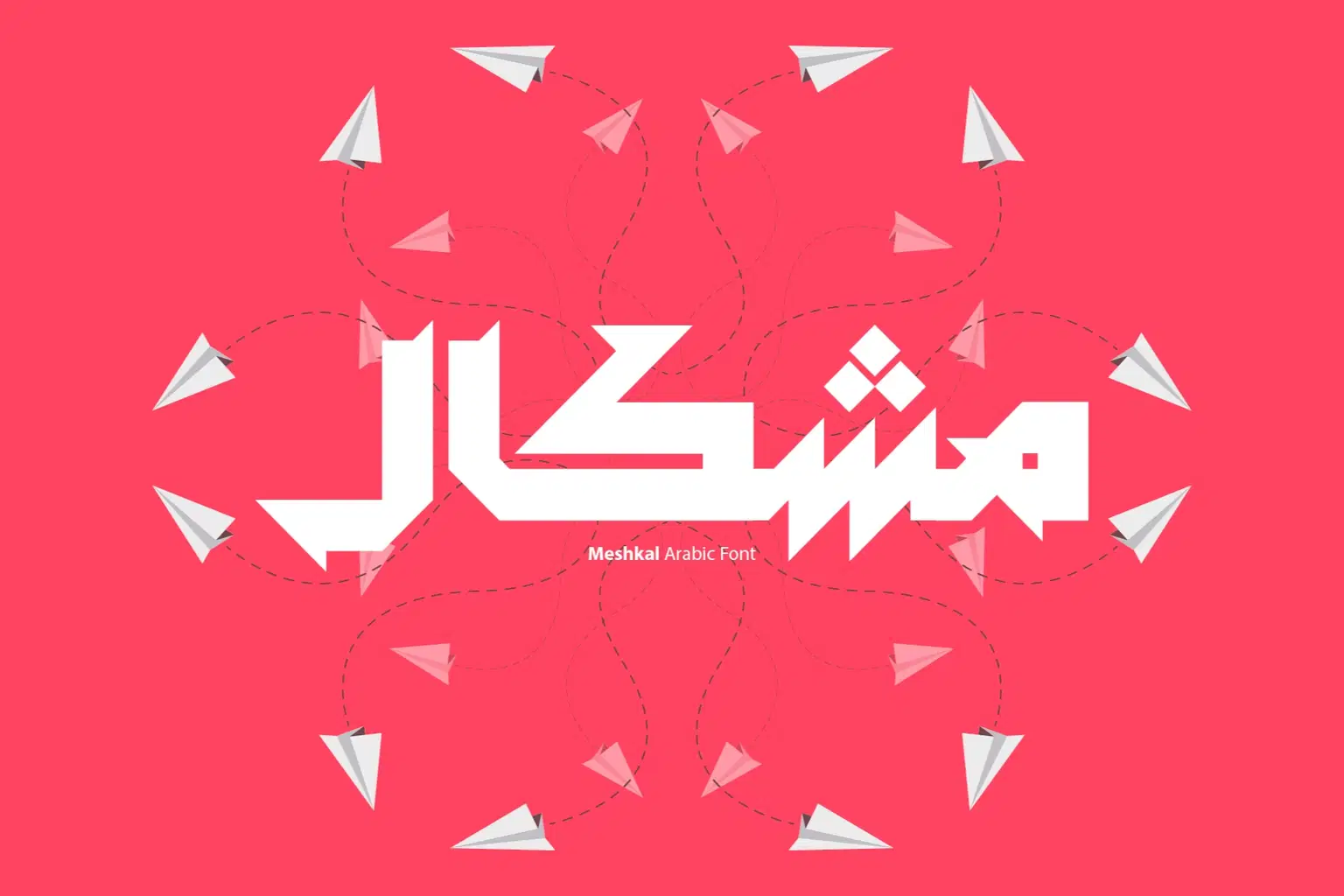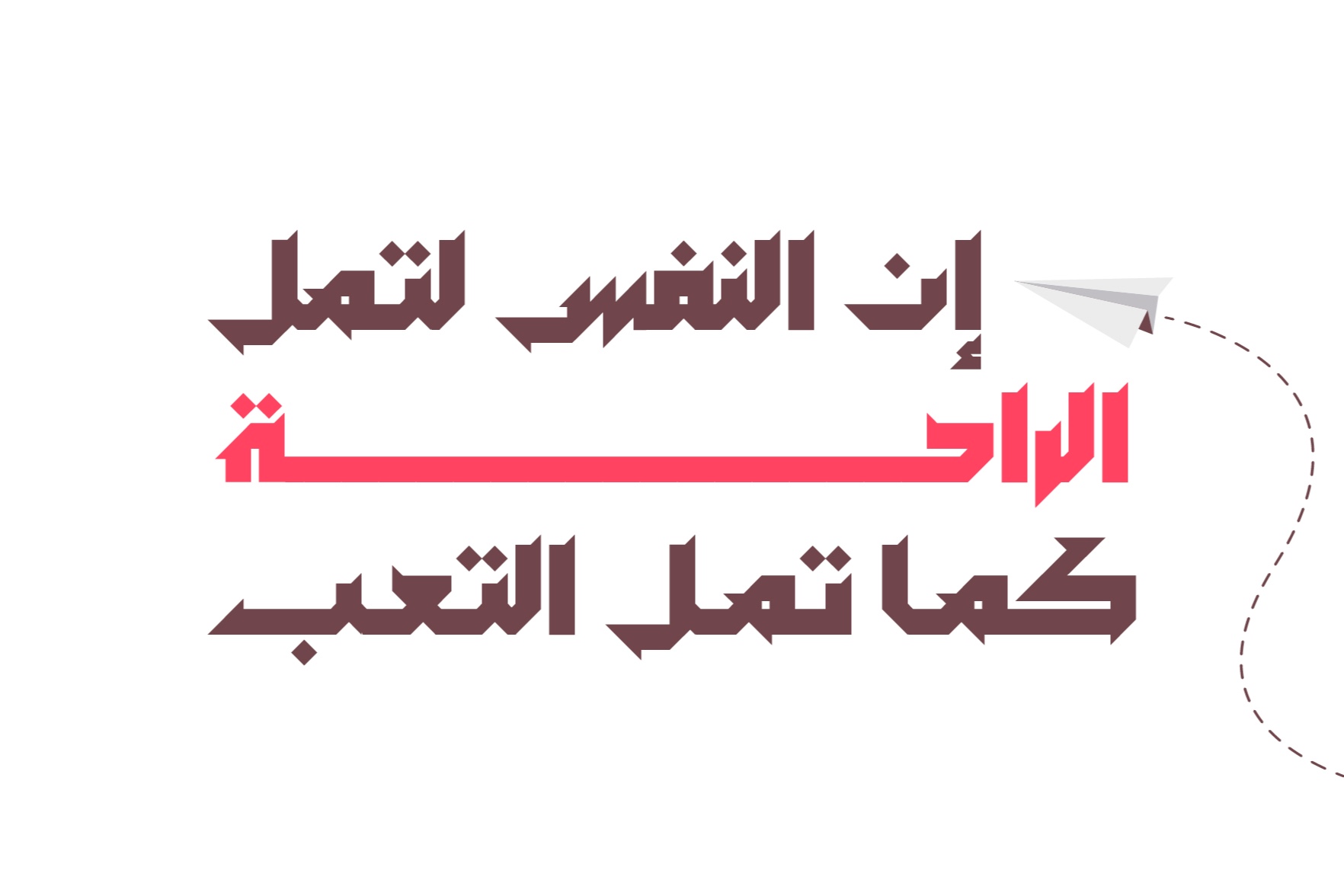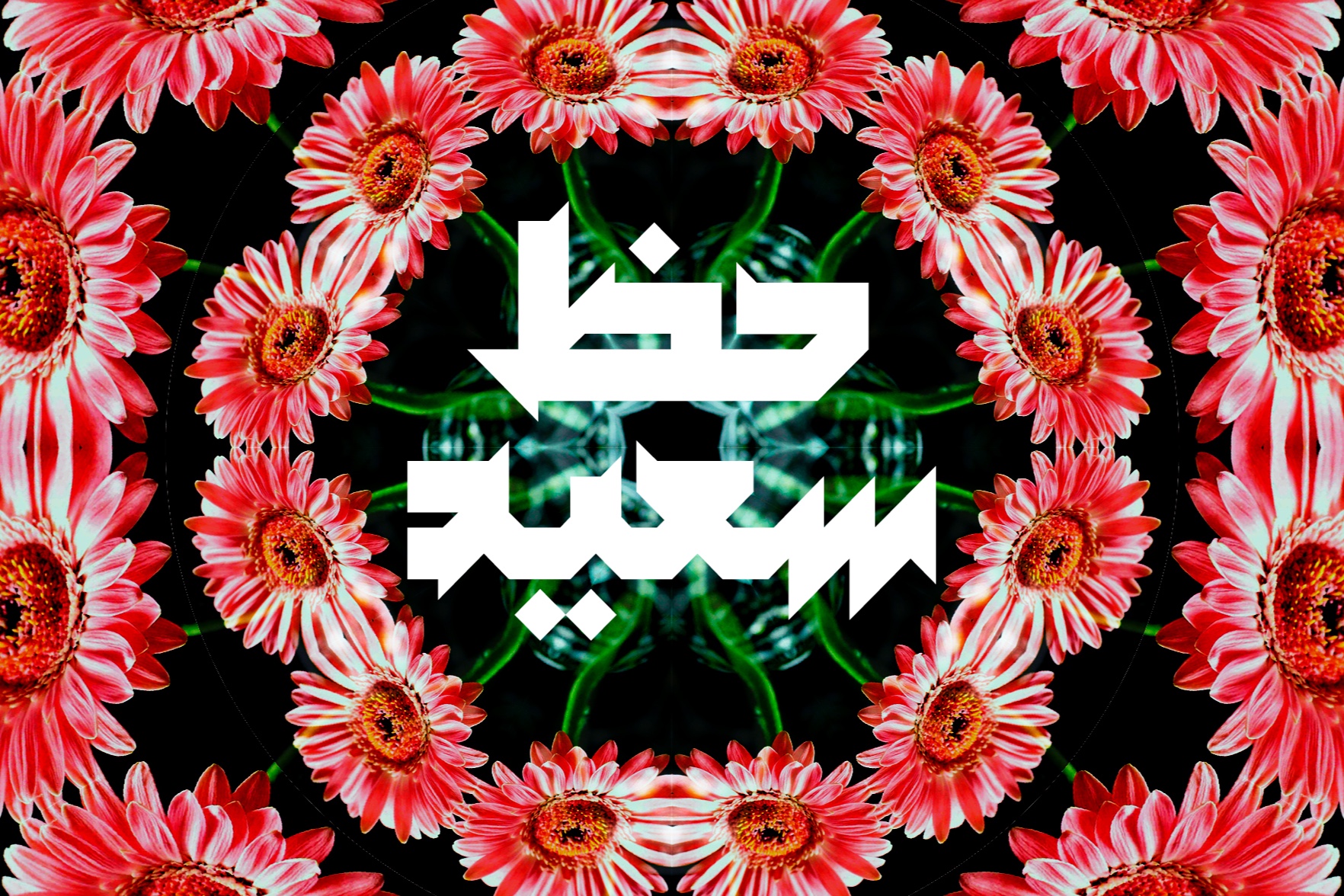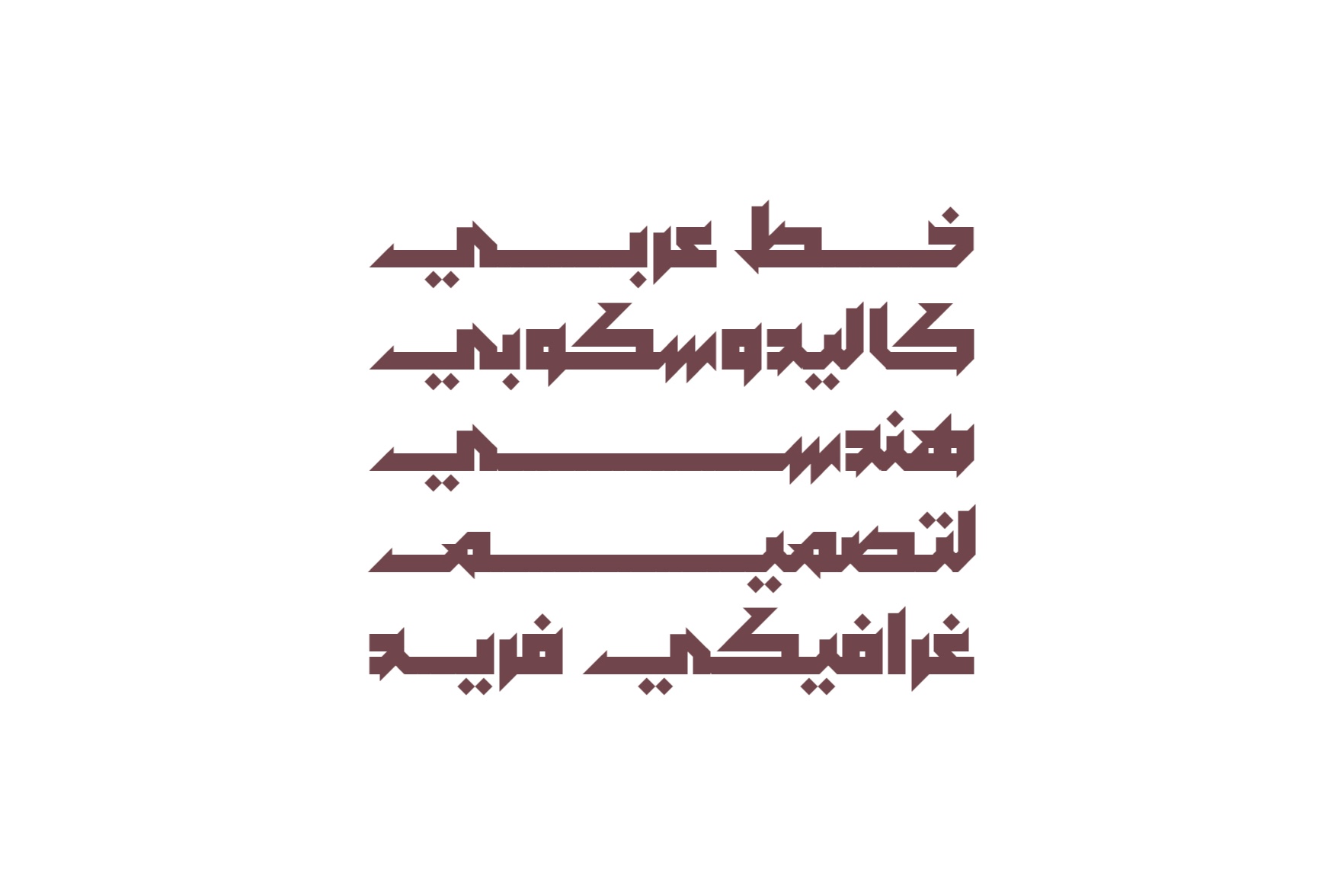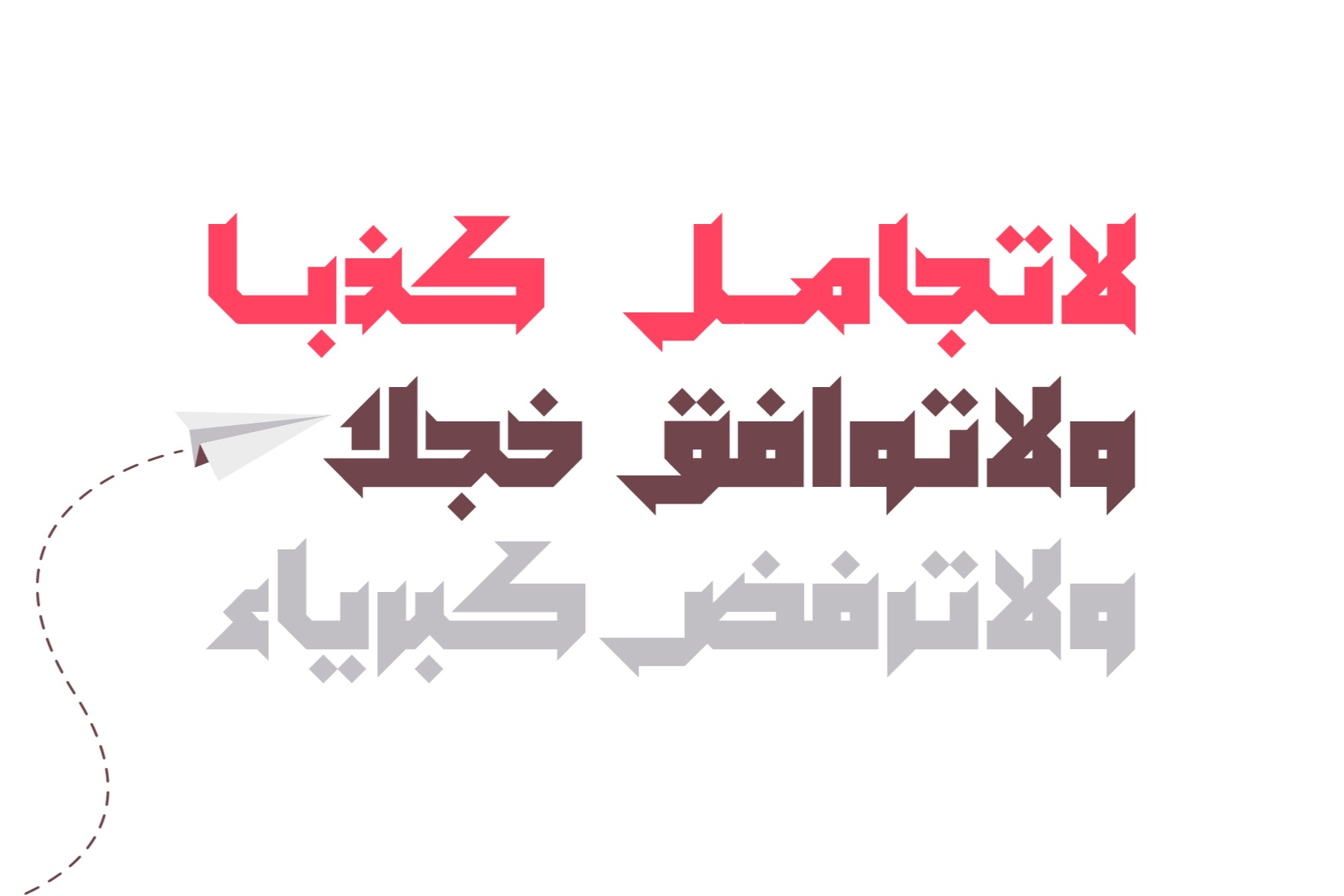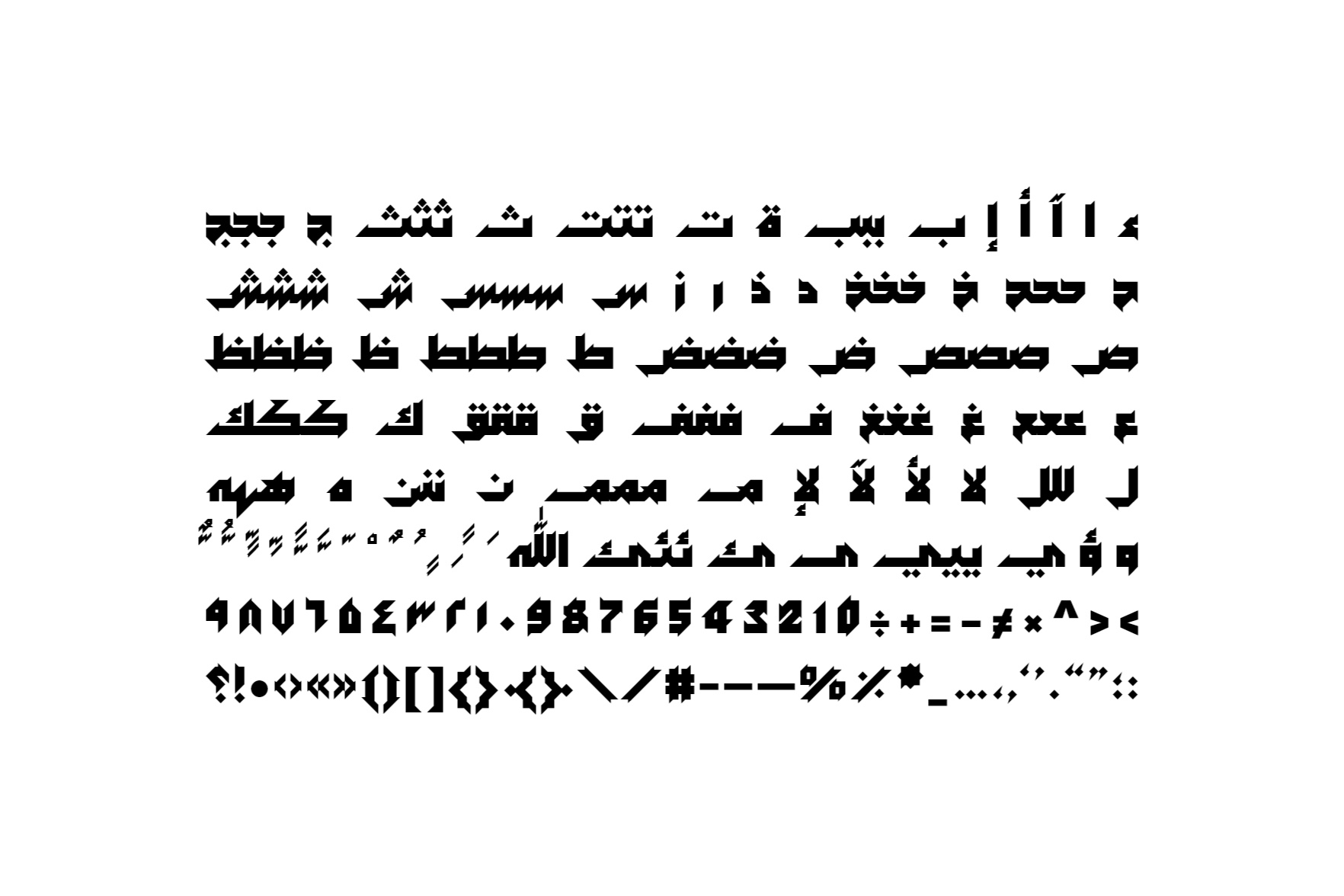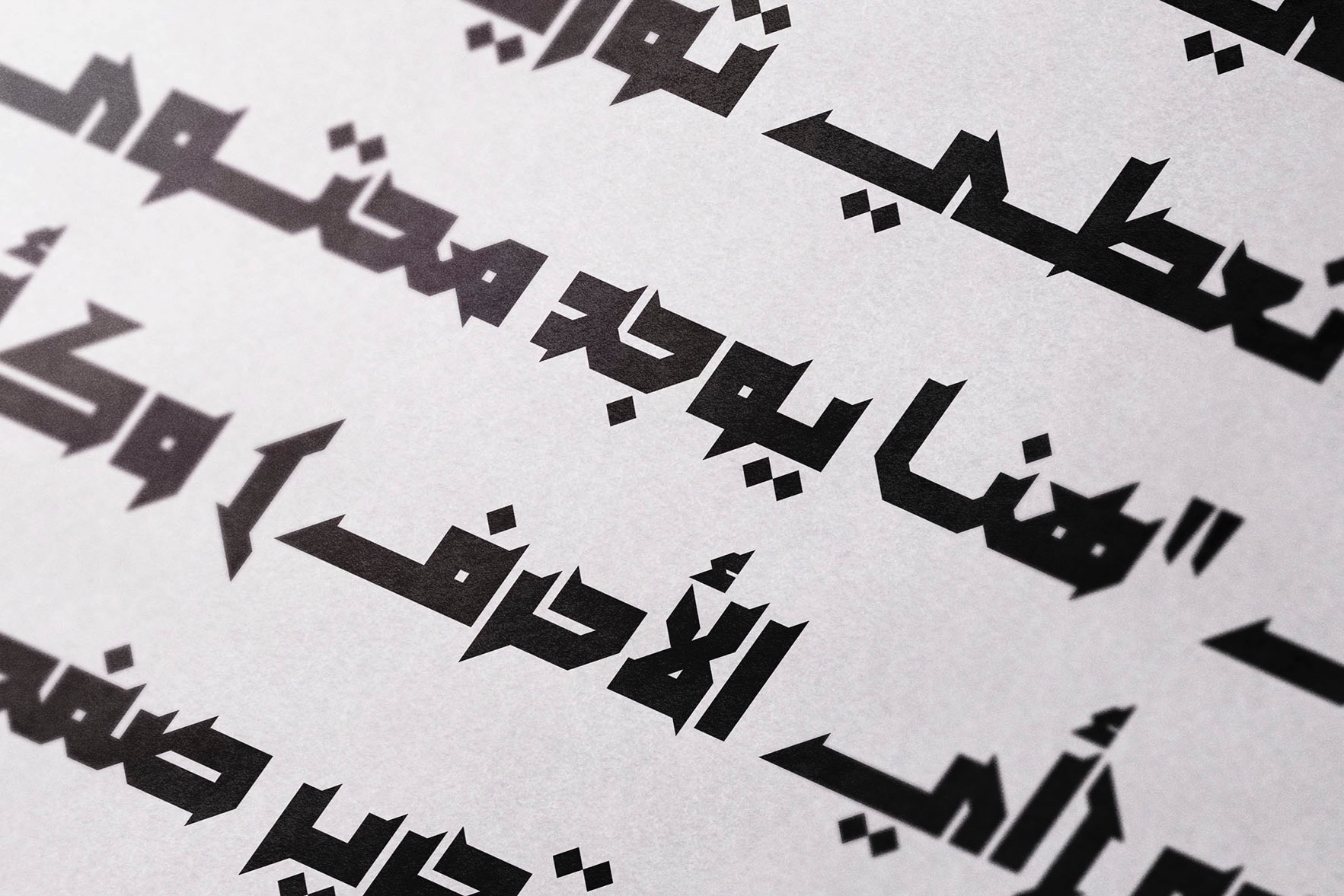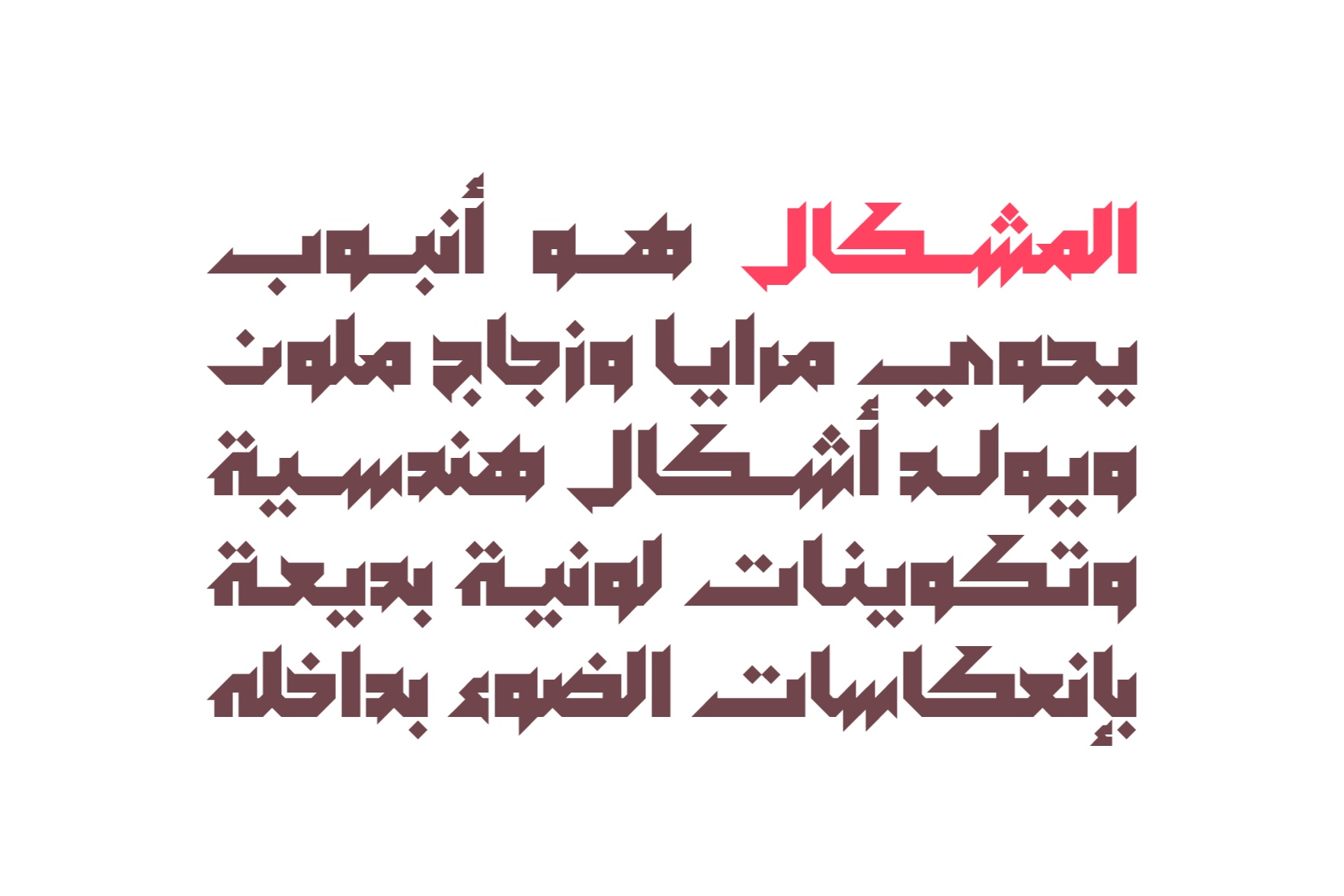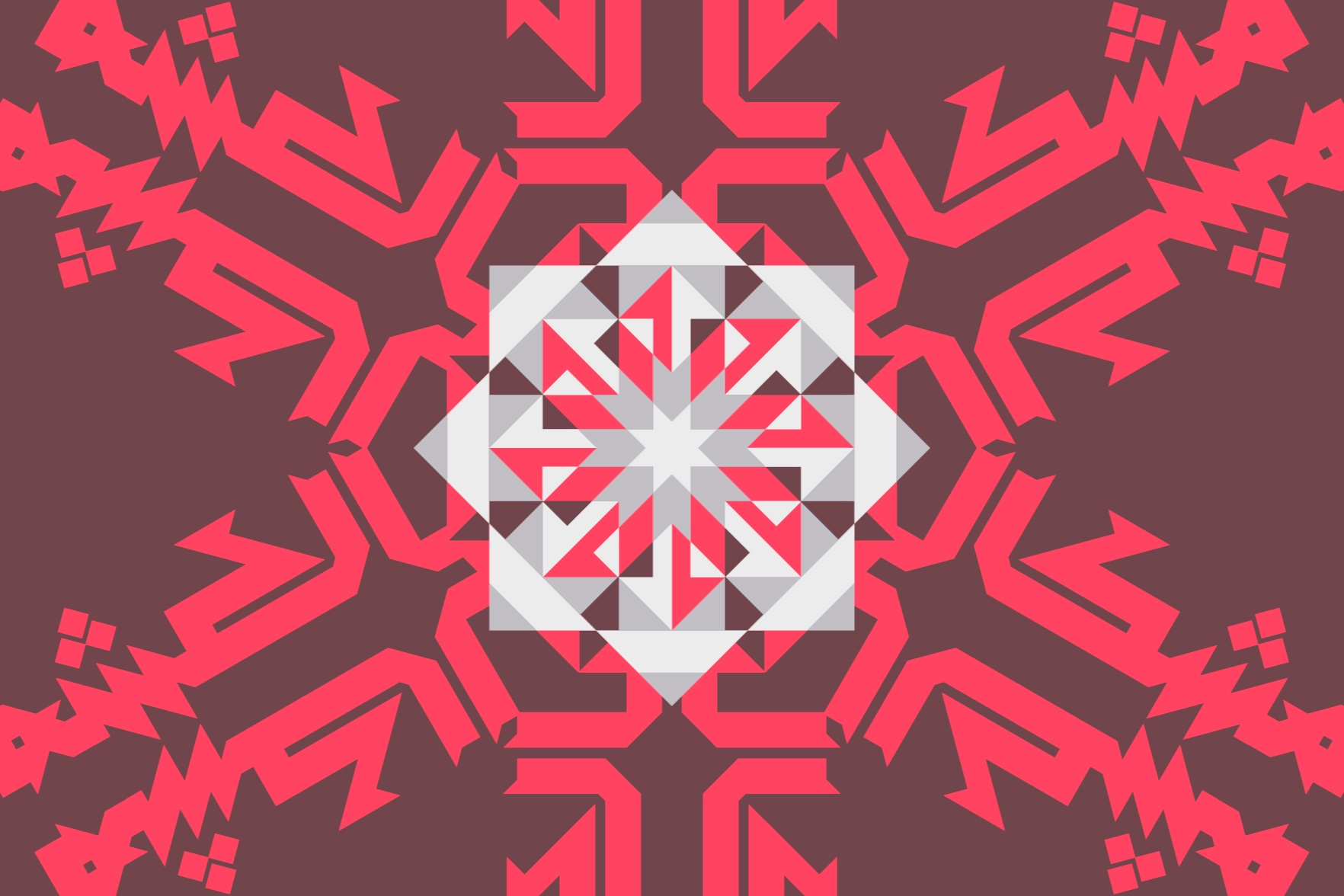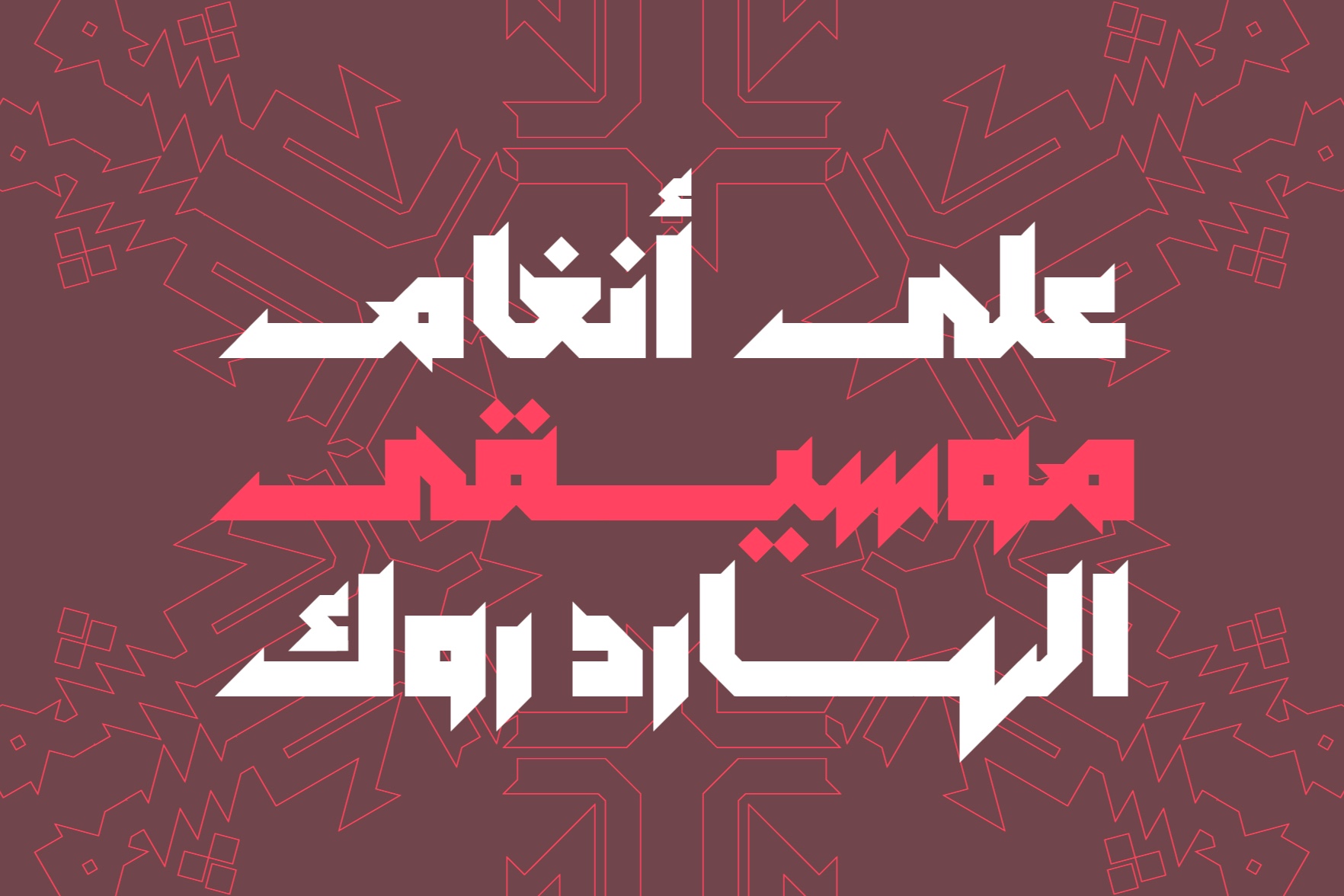
Meshkal (Arabic for “Kaleidoscope”) is an Arabic display font inspired by kaleidoscopic geometries. Its design features a solid structure with sharp edges, making it well-suited for typographic compositions and graphic design projects. Meshkal is compatible with web, print, and mobile applications.
Single style
270+ Characters